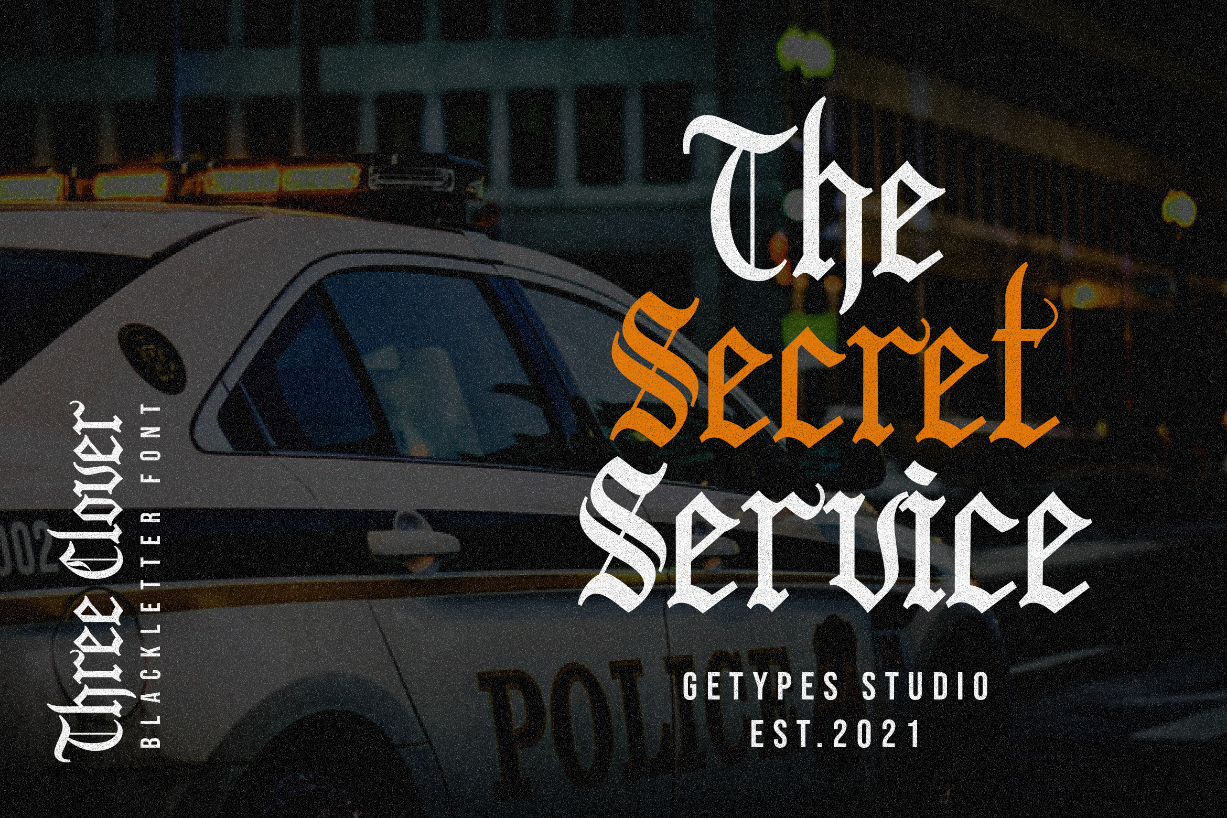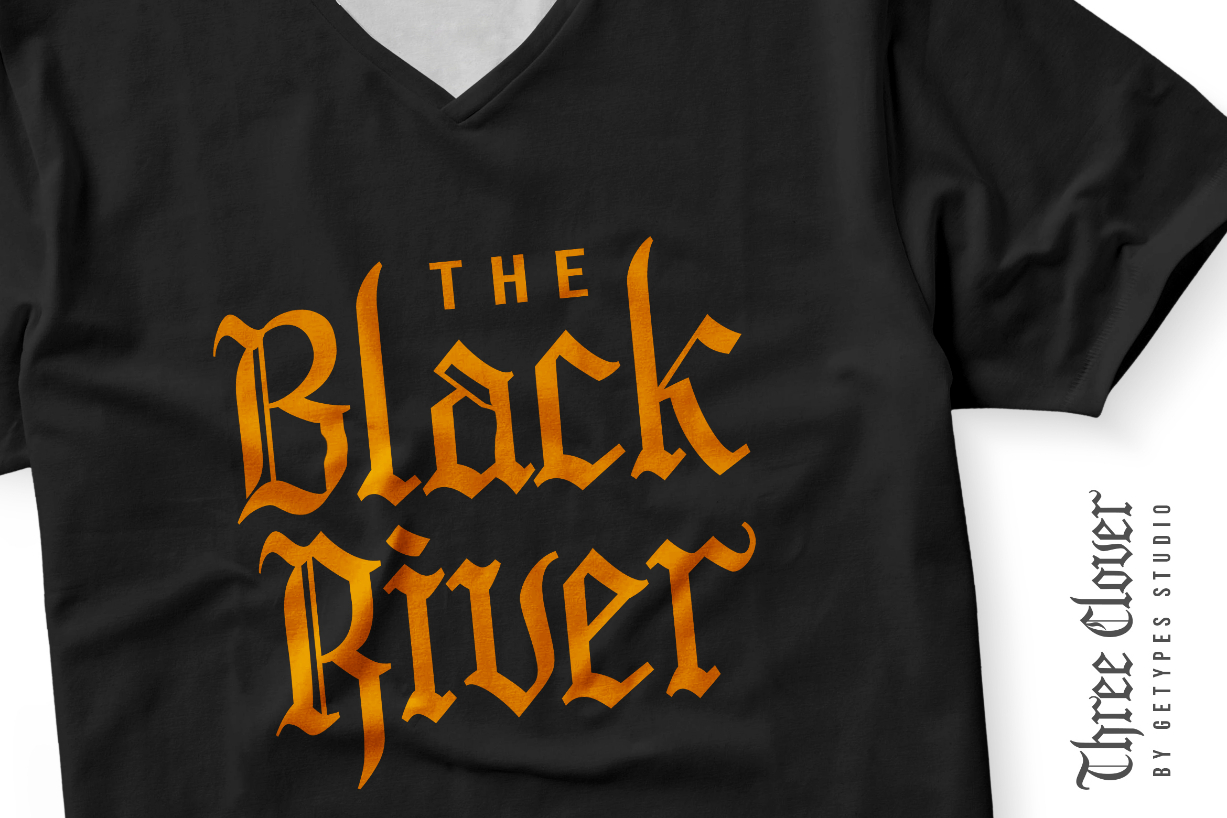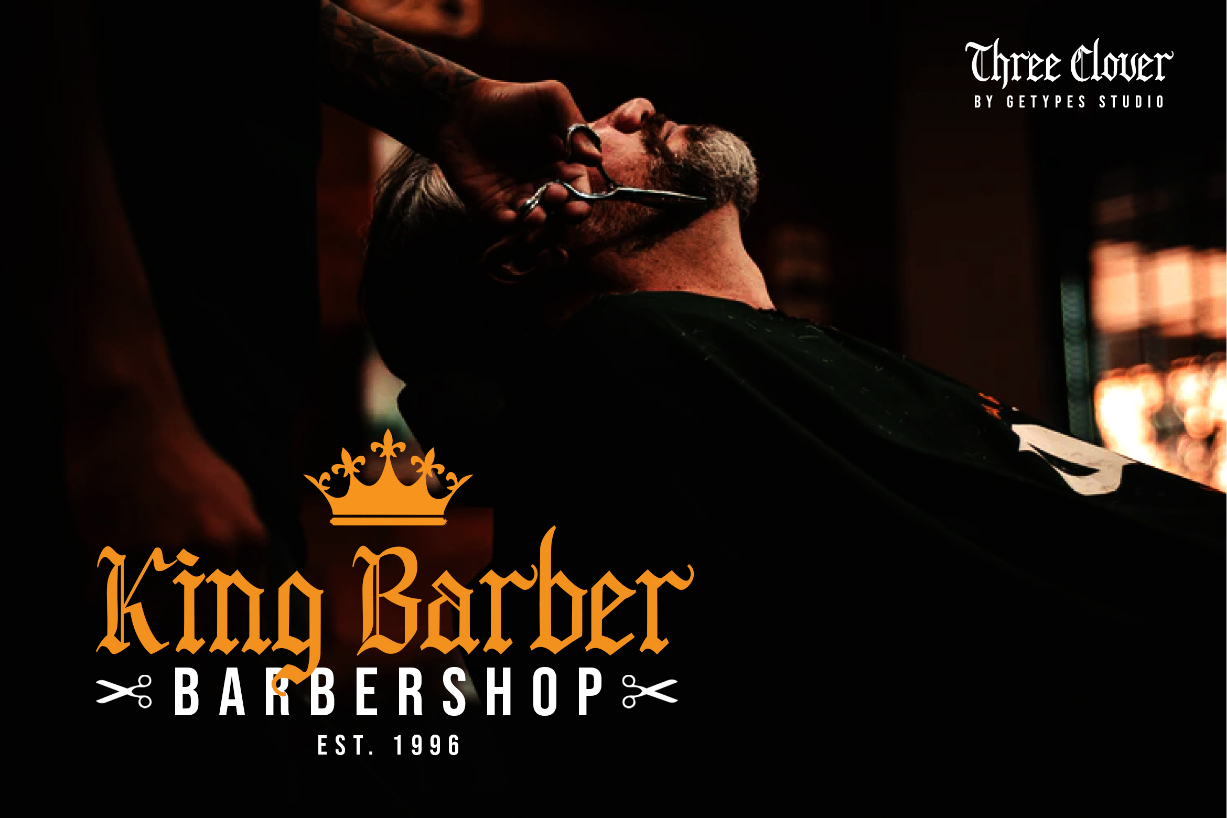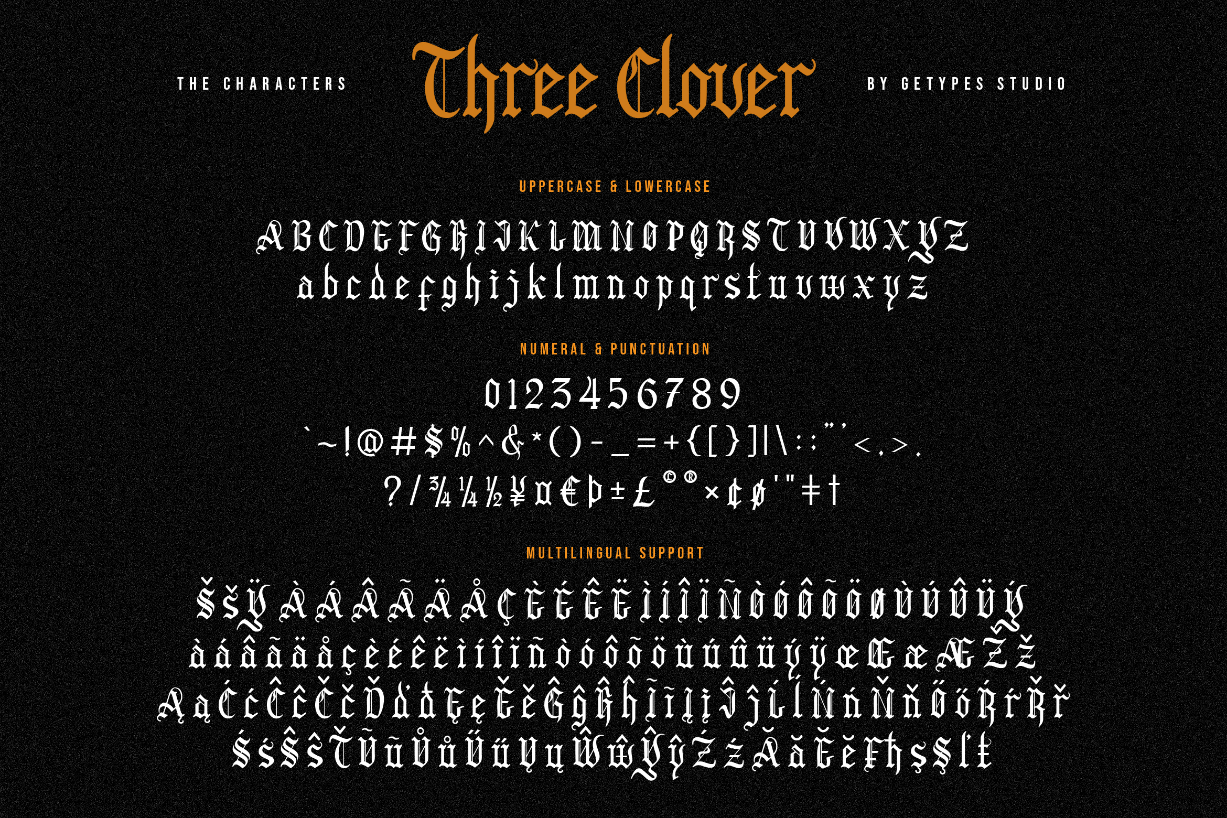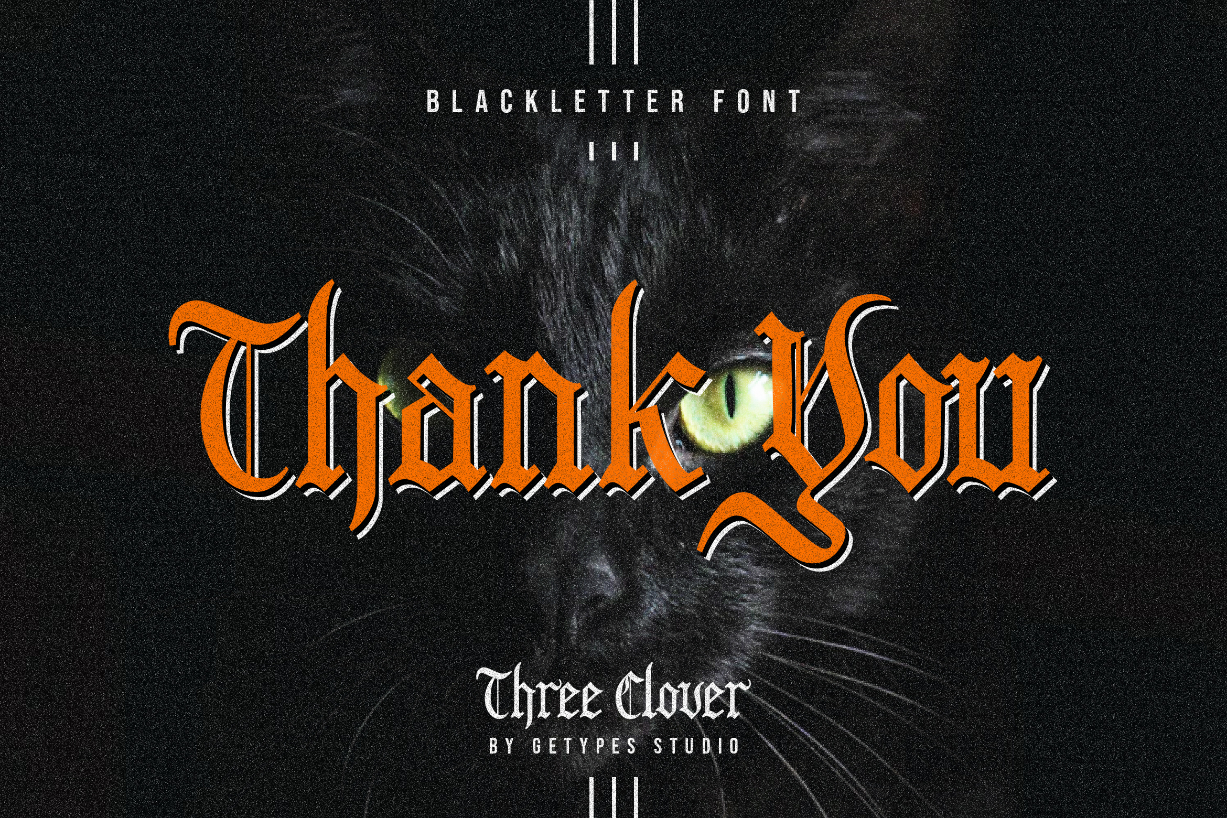
Three Clover Font
Three Clover is an authentic and bold blackletter font. This original look will appeal to a wide range of crafty ideas, from letterheads and titles, to stationery.